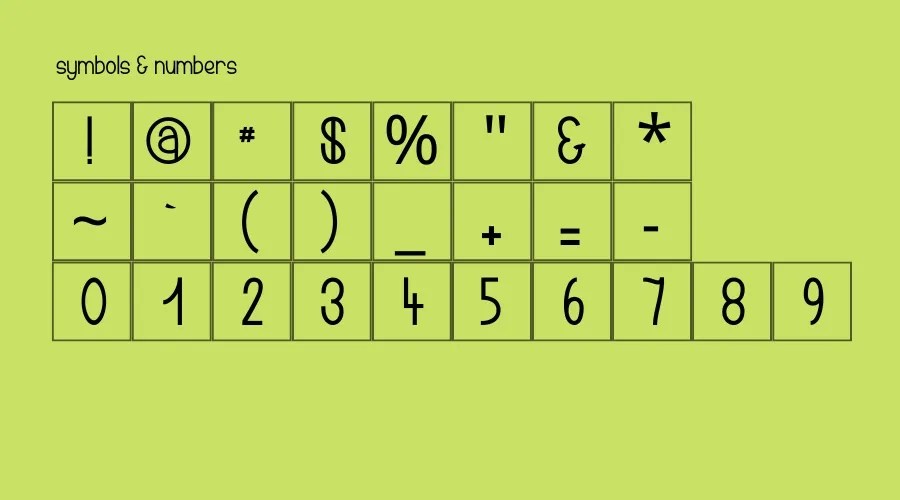
Peanut Butter Font by Hanna Bie · Creative Fabrica Peanut Butter Cookies Font Download and install the peanut butter cookies font for free from ffonts.net. Download and install the peanut butter cookies font by dcoxy. The peanut butter cookies font contains 165 beautifully designed characters. The peanut butter cookies font has been downloaded 29,310 times. 129,820 downloads (8 yesterday) free for personal use. This font is for personal use only! ️ this font. Peanut Butter Cookies Font.
PEANUT BUTTER Font · 1001 Fonts Peanut Butter Cookies Font ️ customize your own preview on ffonts.net to make sure it`s the right one for your designs. Download and install the peanut butter cookies font by dcoxy. ️ this font has been downloaded 500+ times. The peanut butter cookies font has been downloaded 29,310 times. 129,820 downloads (8 yesterday) free for personal use. This font is for personal use only!. Peanut Butter Cookies Font.
Butter Peanut Font download Free Dafont Online Peanut Butter Cookies Font Download and install the peanut butter cookies font for free from ffonts.net. This font is for personal use only! ️ this font has been downloaded 500+ times. The peanut butter cookies font has been downloaded 29,310 times. Download and install the peanut butter cookies font by dcoxy. Peanut butter cookies, a delightful creation by dcoxy medina gregory, brings a playful. Peanut Butter Cookies Font.
Peanut Butter Cookies Embroidery Font Butter cookies, Embroidery fonts, Peanut butter cookies Peanut Butter Cookies Font The typeface contains 1 file and supports 30 languages. 129,820 downloads (8 yesterday) free for personal use. ️ this font has been downloaded 500+ times. This font is for personal use only! Peanut butter cookies, a delightful creation by dcoxy medina gregory, brings a playful charm to the display font category. Download and install the peanut butter cookies font by. Peanut Butter Cookies Font.
Peanut Butter Cookies Font Free Download Best Fonts Collection Peanut Butter Cookies Font The peanut butter cookies font contains 165 beautifully designed characters. ️ customize your own preview on ffonts.net to make sure it`s the right one for your designs. Peanut butter cookies, a delightful creation by dcoxy medina gregory, brings a playful charm to the display font category. 129,820 downloads (8 yesterday) free for personal use. The typeface contains 1 file and. Peanut Butter Cookies Font.